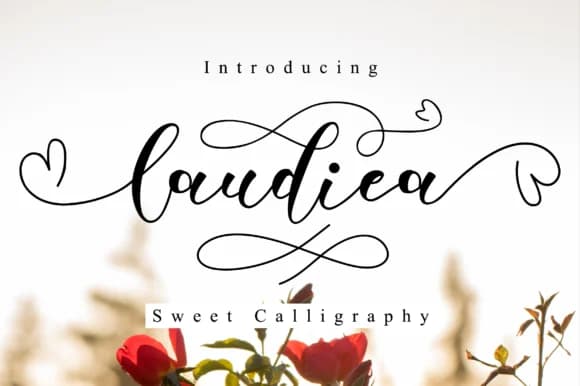
This script feels personal yet polished, striking that rare balance between handmade and sophisticated. Laudiea Script Font, designed by NissaStudio, captures that handwritten warmth without sacrificing modern refinement. The font excels in contexts where personality matters as much as polish. Wedding invitation suites benefit from its flowing letterforms, which signal care and genuine attention to detail. Boutique product packaging, especially for skincare or artisanal goods, gains instant credibility when paired with this thoughtful script. Restaurant menus, wine labels, and luxury greeting cards all feel considerably more intentional with Laudiea as the primary voice.
Handmade journal covers and DIY craft signage get a boost of sophistication with its distinctive hand-drawn quality. What sets this font apart is how legible it remains despite its decorative nature. The strokes are notably generous and well-spaced, so scaling it up or down preserves clarity throughout. It adapts equally well to physical goods and digital layouts, maintaining its character across applications. Pair this script with a clean, geometric sans-serif for body copy to maintain readable hierarchy. That contrast keeps everything accessible while preserving the elegance Laudiea brings to the foreground. Find it on Creative Fabrica and let this script add handcrafted refinement to your next project.
Laudiea Script Font is a script font that shines as a display or heading face. Pair it with a clean sans-serif or serif font for body text β the contrast creates a clear hierarchy while the two styles stay balanced and easy to read.